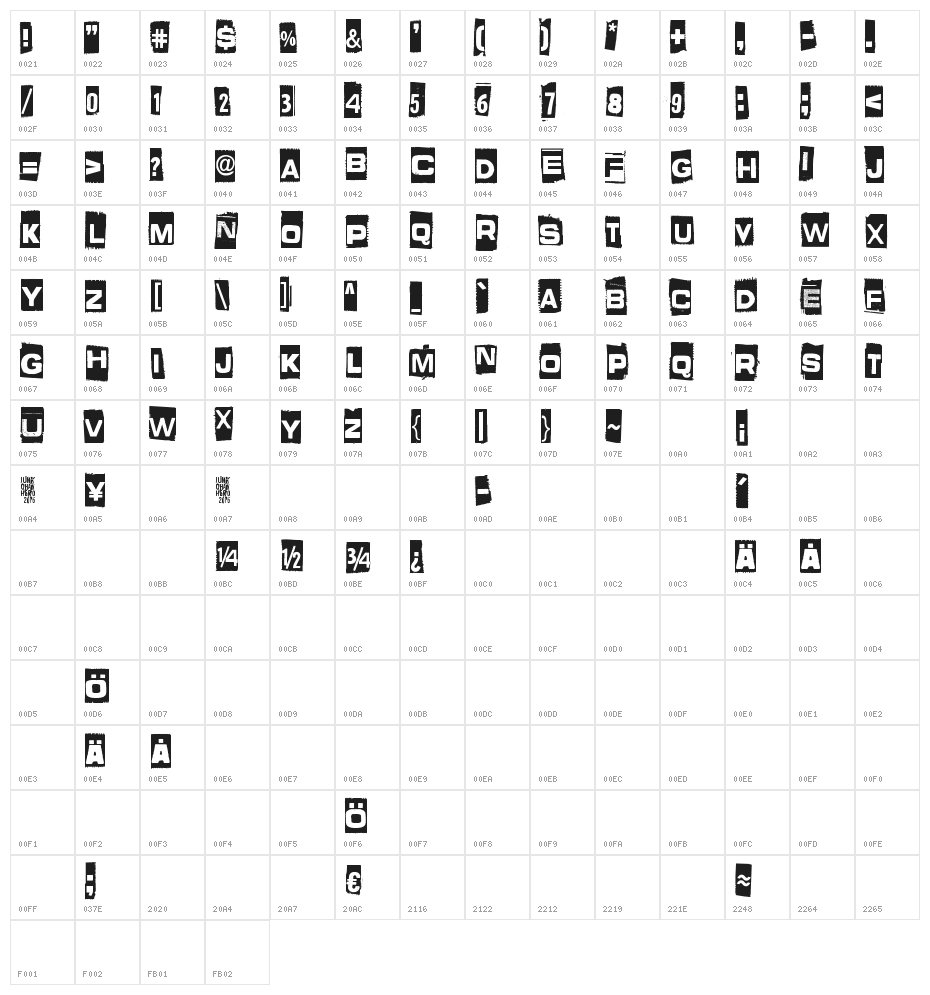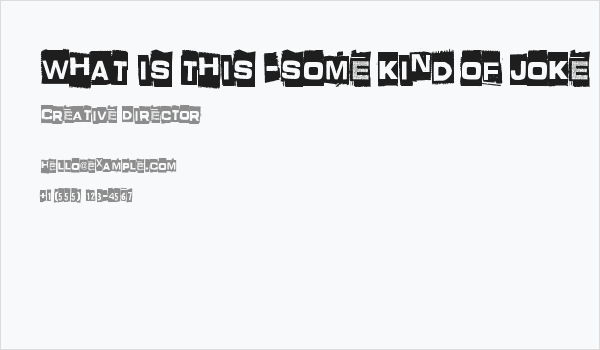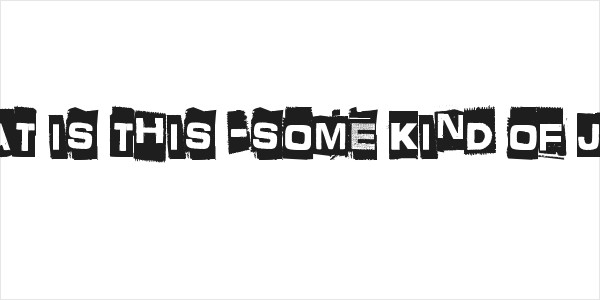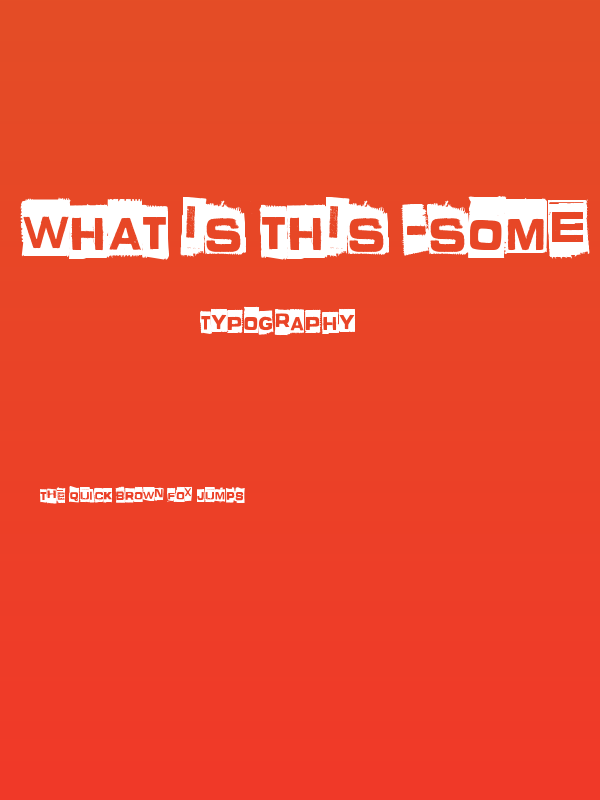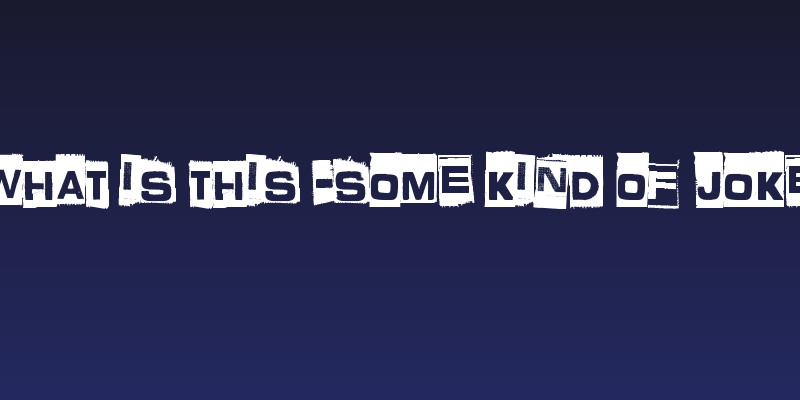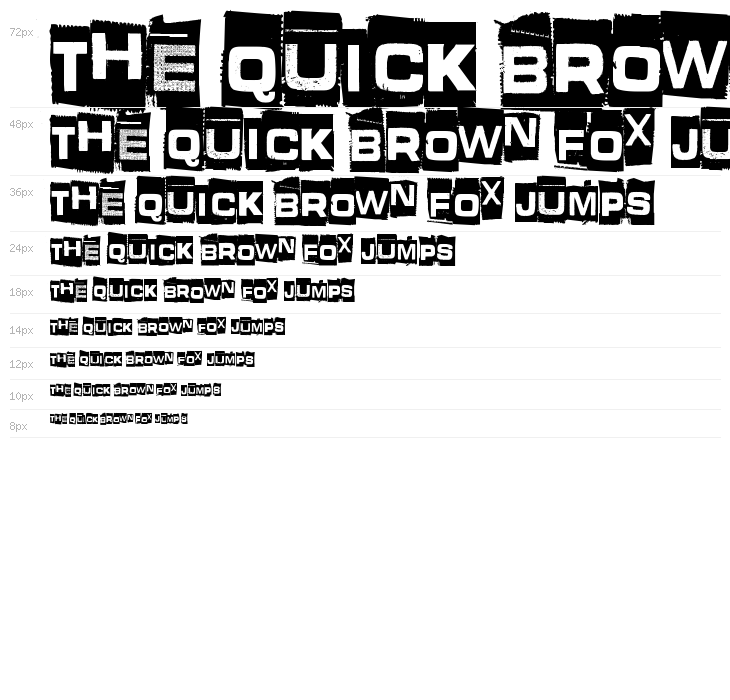
What is this -some kind of joke Font
What is this -some kind of joke Description
This font features a bold, distressed style reminiscent of cut-out letters from newspapers or magazines, often used in ransom notes or punk rock aesthetics. The characters are uppercase and lowercase, with numbers and special symbols, all appearing as if they were individually cut and pasted, giving a chaotic yet artistic vibe. The rough edges and inconsistent alignment add to its rebellious and edgy feel, making it stand out in any design. The font's unique appearance is perfect for projects that require a touch of grunge or an anti-establishment theme.
Overall StyleGrunge, Punk, Edgy
Use CaseHeadlines, Posters, Artistic Designs
Proposed ProjectsIdeal for album covers, posters, flyers, and any design needing a punk or grunge aesthetic.